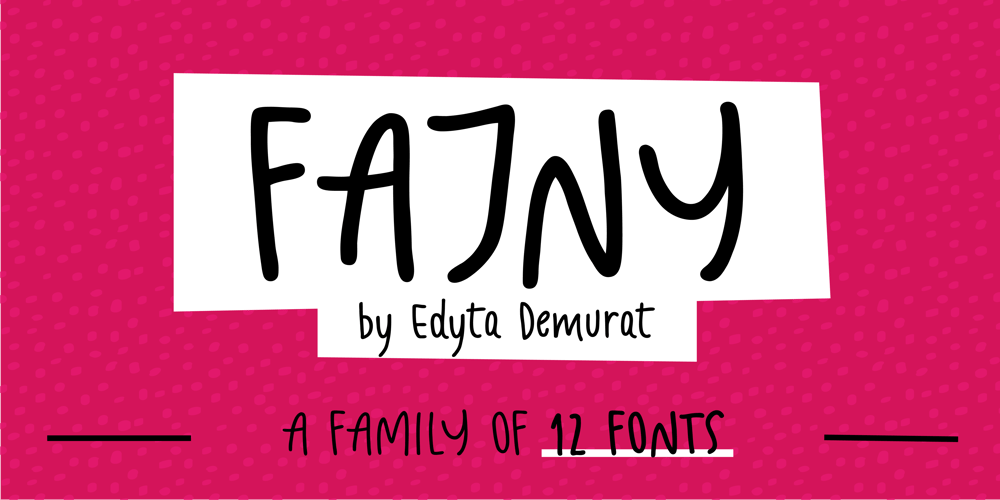
Fajny
Fajny font
Fajny Font Family was designed by Edyta Demurat and published by Edyta Demurat. Fajny contains 12 styles and family package options. Fajny is a hand drawn typeface. The family is available in 12 weights. Fajny has upper and lowercase characters with up to three alternate glyphs. Build in OpenType Contextual Alternates feature will automatically set alternate glyphs depending on frequency of appearance of the same character.